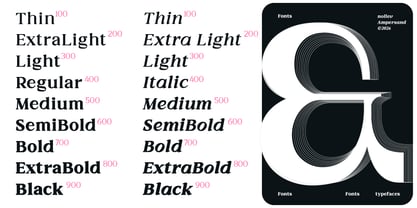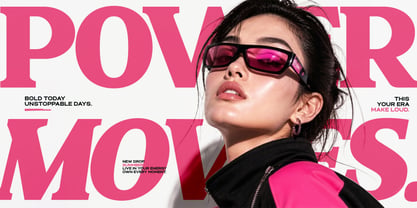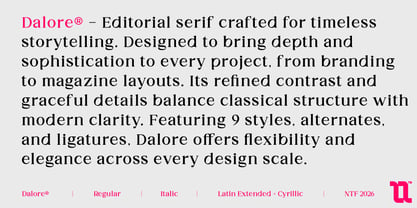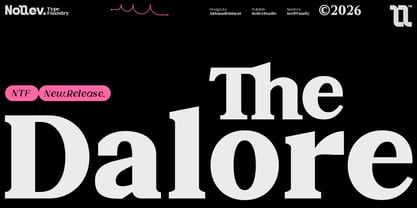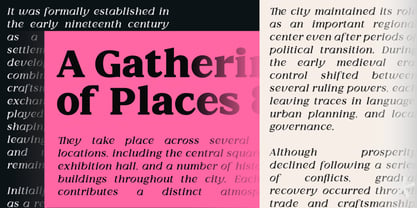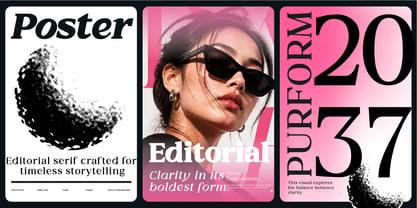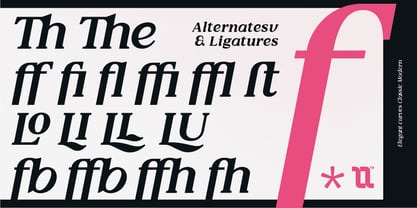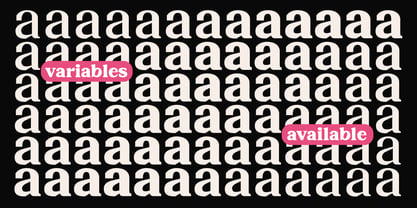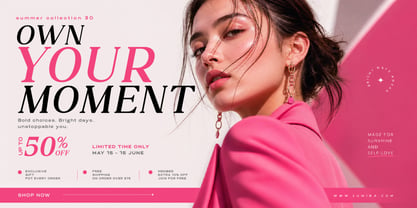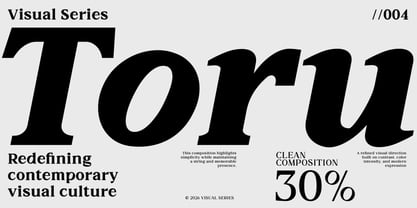
Dalore
The Dalore Font Family was designed by Akhmad Hidayat and published by Nollev. Dalore contains 20 styles and family package options. More about this family
Dalore is a modern editorial serif designed for designers who seek elegance and professionalism in their typography. Featuring 18 styles — from Thin to Black with matching Italics — Dalore offers complete versatility for headings, body text, and display use. With Latin Extended and Cyrillic support and over 570 glyphs, Dalore is built for international projects and complex typographic systems. Its refined contrast, balanced proportions, and subtle details bring a timeless yet contemporary character to any design — from branding and posters to editorial layouts. Blending classic serif elegance with modern editorial sophistication, Dalore ensures every composition stands out with clarity, confidence, and style.